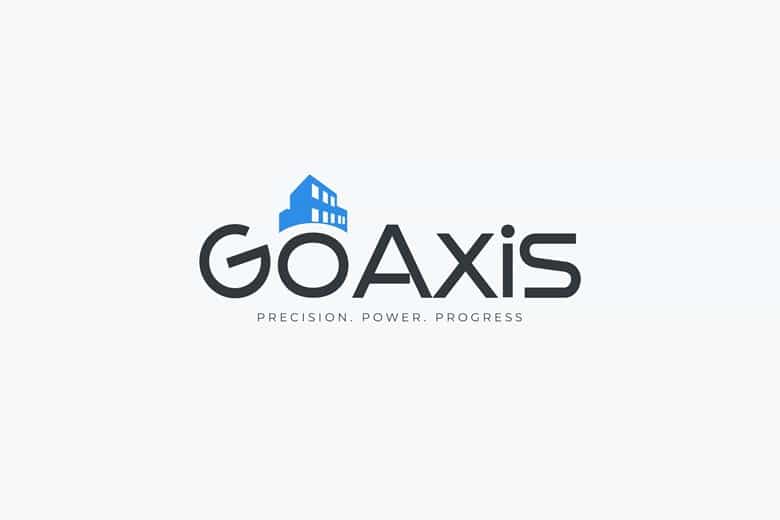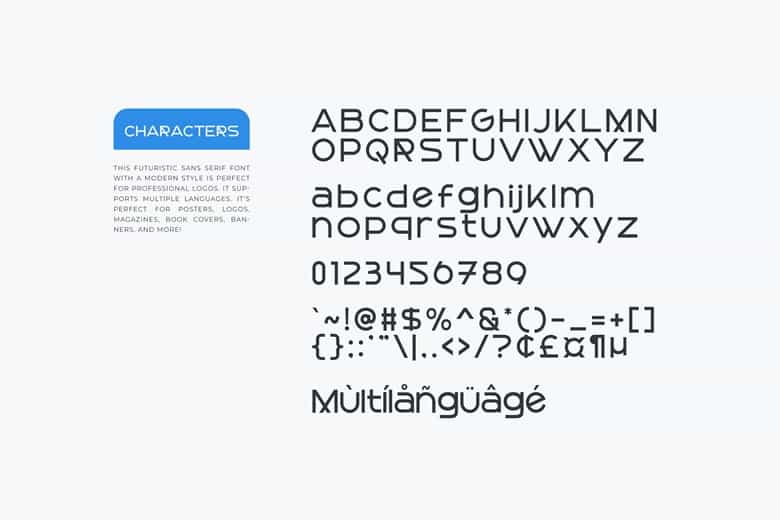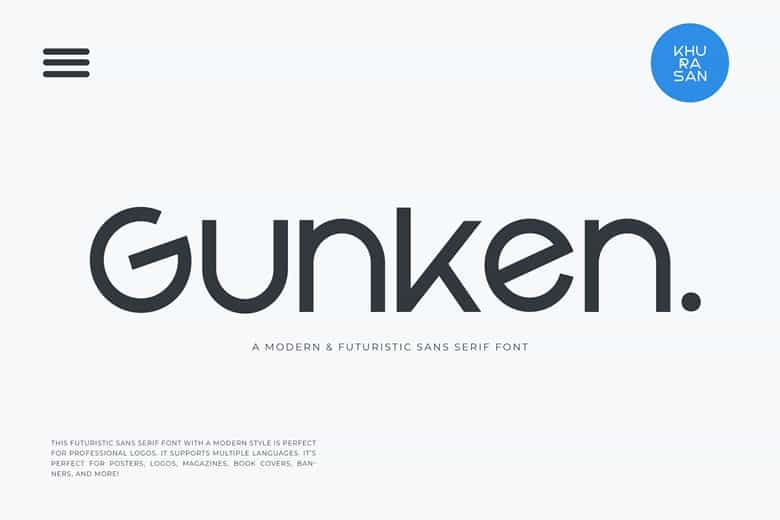
Gunken is a modern and futuristic sans serif typeface. The smooth and light execution makes this font look sleek and elegant which is perfect for futuristic branding designs. It can easily be matched to an incredibly large set of projects, so add it to your creative ideas and notice how it makes them stand out. It’s perfect for posters, logos, magazines, book covers, banners, and more! Get this font and use it to create the best designs!